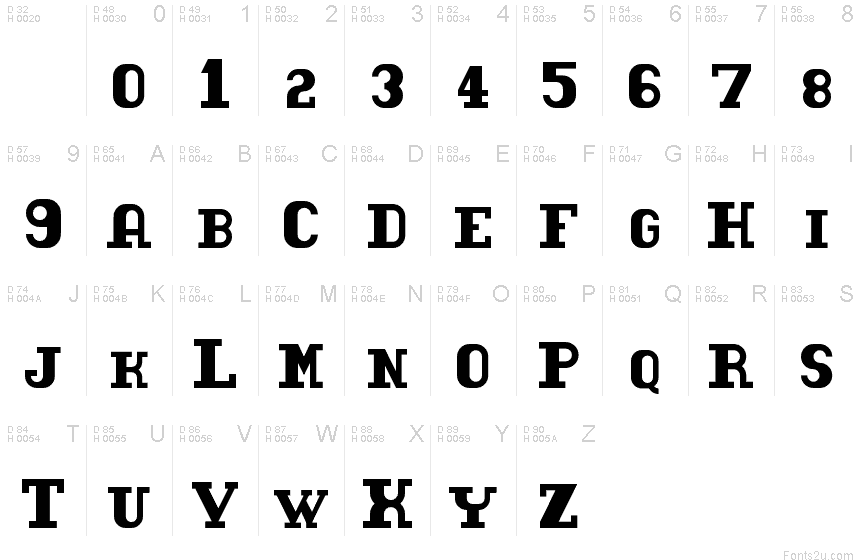
Tacketil by imagex is a free geometric serif font with massive upright forms, near-monoline strokes, blunt rectangular slab endings, and a very emphatic industrial silhouette. The tightly fitted lettering feels dense, rigid, and architectural.
Poster titles are its strongest role, particularly for architecture exhibitions and electronic music events, where the broad, squared forms can resemble sturdy lettering cut deep into a concrete facade. Brand identities for industrial products, sports merchandise, and stark editorial covers can use the same monumental shapes as a compact, hard-edged emblem rather than quiet supporting text.